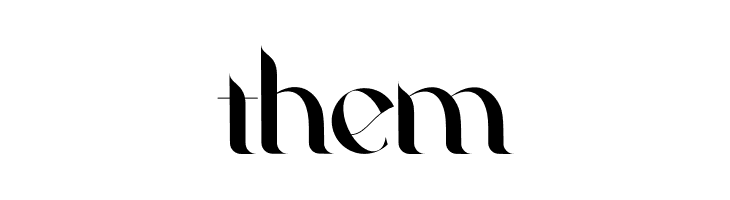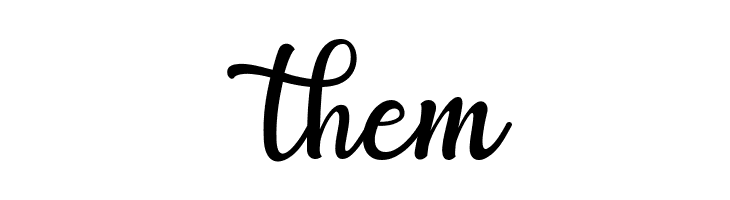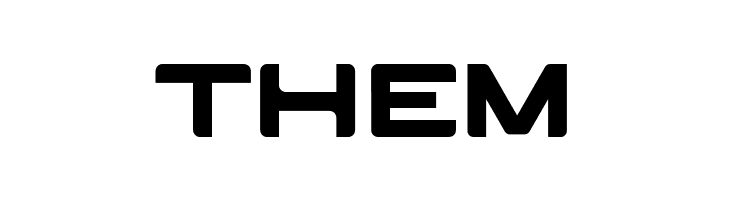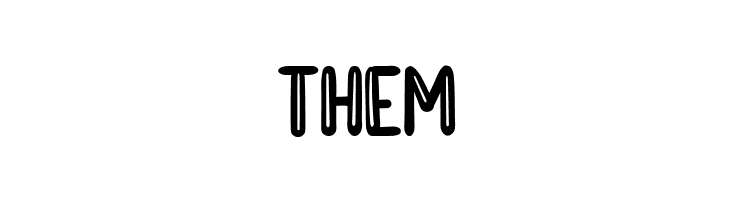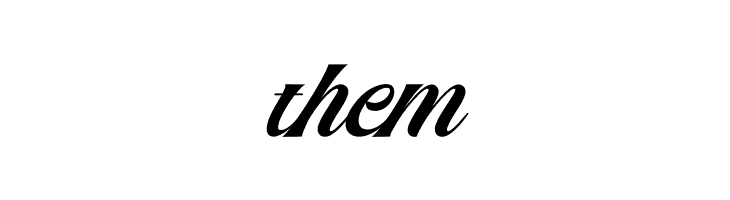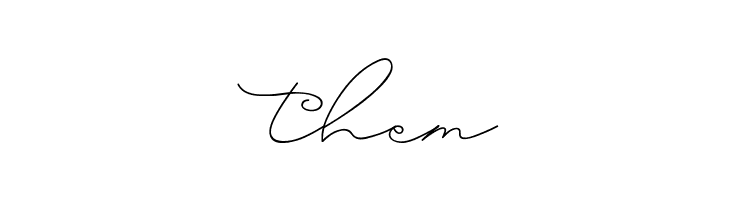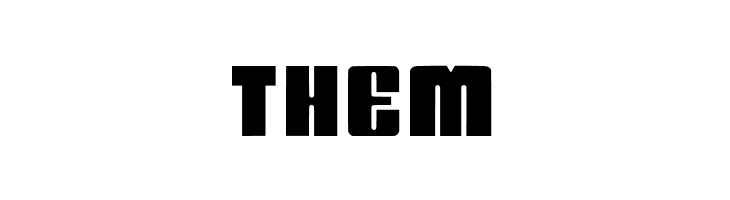
A lively, cursive font with interconnected letters and elegant curves.
A playful, bold font with rounded edges and a hand-drawn aesthetic.
A playful, bold, hand-drawn uppercase font with a casual and friendly feel.
A bold, geometric font with an industrial and commanding presence.
A modern, high-contrast font with elegant serifs and artistic flourishes.
An elegant script font with flowing, cursive letterforms and ornate details.
Thin, elegant handwritten script with connected, flowing letters.
A modern, geometric font with a clean and structured appearance.
A bold, modern font with a futuristic and geometric design.